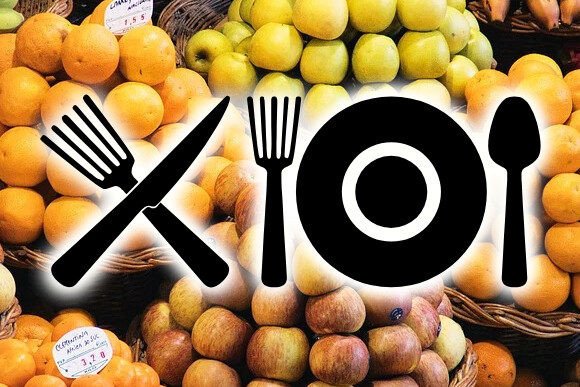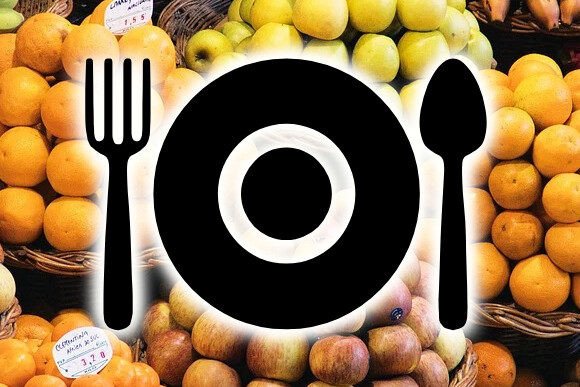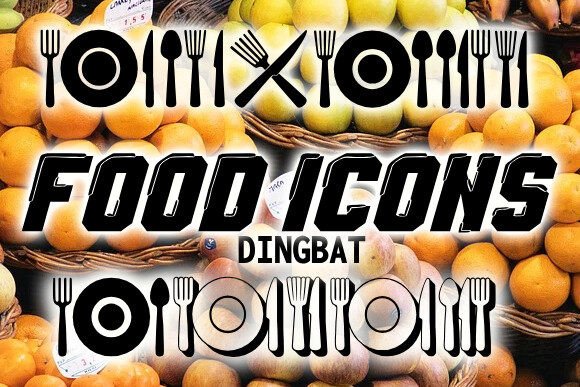
Introducing Food Icons Font: A Deliciously Fun Dingbat Font for Designers and Crafters
Are you a designer, crafter, or food enthusiast looking for a unique and engaging way to add a touch of culinary flair to your projects? Look no further than Food Icons Font, a fun and creative dingbat font that uses pictures instead of letters to bring your designs to life. In this article, we’ll explore the features and benefits of Food Icons Font, and show you how to make the most of this tasty typography.
What is Food Icons Font?
Food Icons Font is a specially designed dingbat font that features a wide range of symbols related to food and dining. From plates, utensils, and meal settings to delicious food items and drinks, this font has everything you need to create visually appealing and engaging designs. Whether you’re working on a menu, invitation, food blog, or social media post, Food Icons Font is the perfect way to add a dash of personality and whimsy to your project.
Key Features of Food Icons Font
- Wide range of food-related symbols: With Food Icons Font, you’ll have access to a vast library of symbols and icons that are perfect for food-themed designs. From basic utensils and plates to complex meal settings and food items, this font has everything you need.
- Easy to use: Food Icons Font is a dingbat font, which means that you can use it just like any other font in your favorite design software. Simply select the font, and start typing to access the various symbols and icons.
- Scalable and versatile: Food Icons Font is designed to be scalable and versatile, making it perfect for a wide range of applications. Whether you’re working on a small social media post or a large menu board, this font will look great.
- Cute and engaging designs: Food Icons Font is designed to be fun and engaging, making it perfect for designers and crafters who want to add a touch of personality to their projects.
How to Use Food Icons Font
Ideas for Using Food Icons Font
Food Icons Font is a versatile and fun font that can be used in a wide range of applications. Here are some ideas to get you started:
- Menus and restaurant designs: Use Food Icons Font to create visually appealing menus, menu boards, and restaurant designs that showcase your culinary offerings.
- Invitations and event designs: Add a touch of whimsy and personality to your invitations and event designs with Food Icons Font. Perfect for dinner parties, cooking classes, and food-themed events.
- Food blogs and social media posts: Use Food Icons Font to create engaging and shareable social media posts and blog designs that showcase your favorite recipes and food-related stories.
- Crafting and DIY projects: Food Icons Font is perfect for crafters and DIY enthusiasts who want to add a touch of personality to their projects. Use it to create custom signs, labels, and decorations for your kitchen or dining area.
Food Icons Font is a fun and creative dingbat font that’s perfect for designers, crafters, and food enthusiasts. With its wide range of food-related symbols and icons, ease of use, and scalability, this font is sure to become a staple in your design toolbox. Whether you’re working on a menu, invitation, food blog, or social media post, Food Icons Font is the perfect way to add a dash of personality and whimsy to your project. So why wait? Download Food Icons Font today and start creating your own delicious designs!